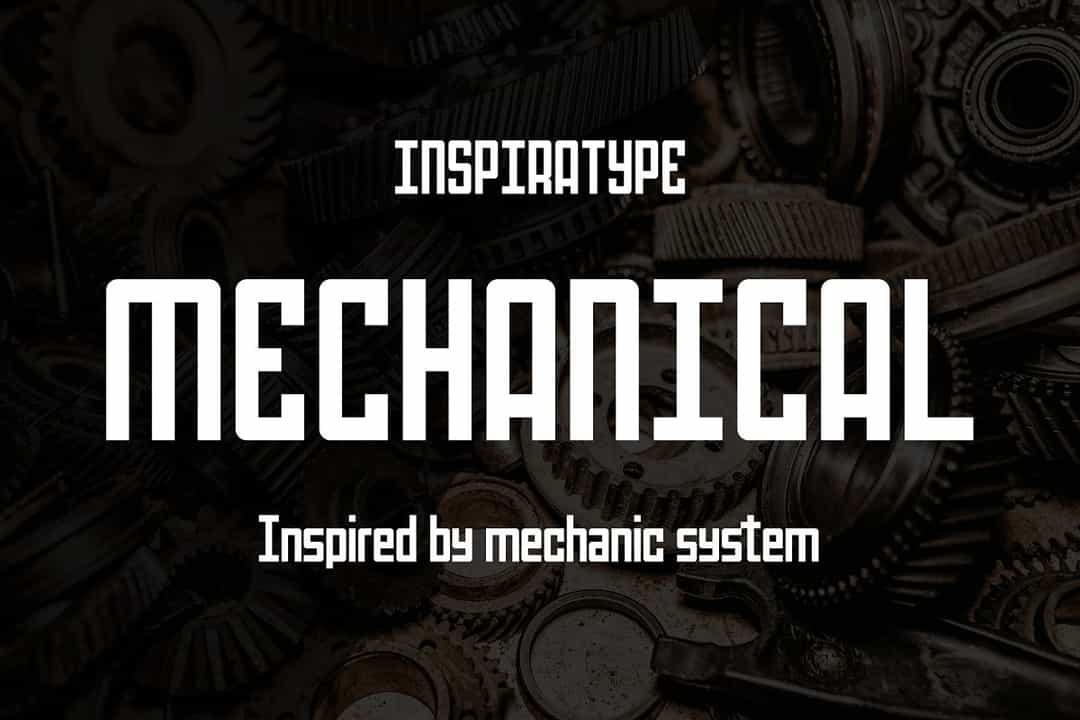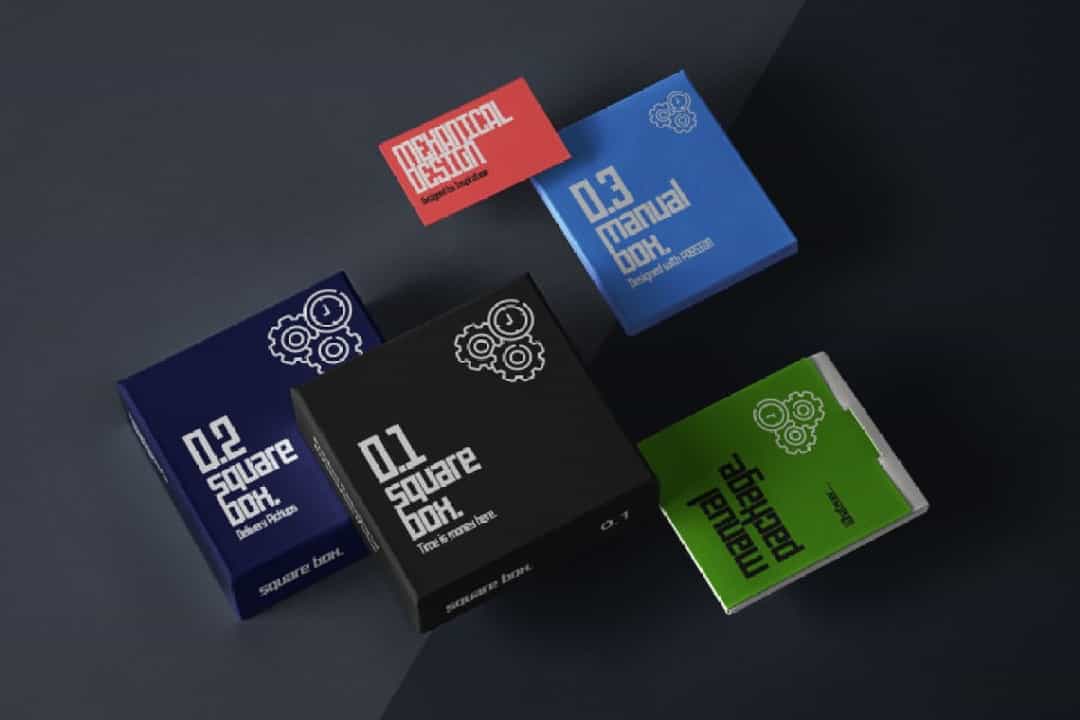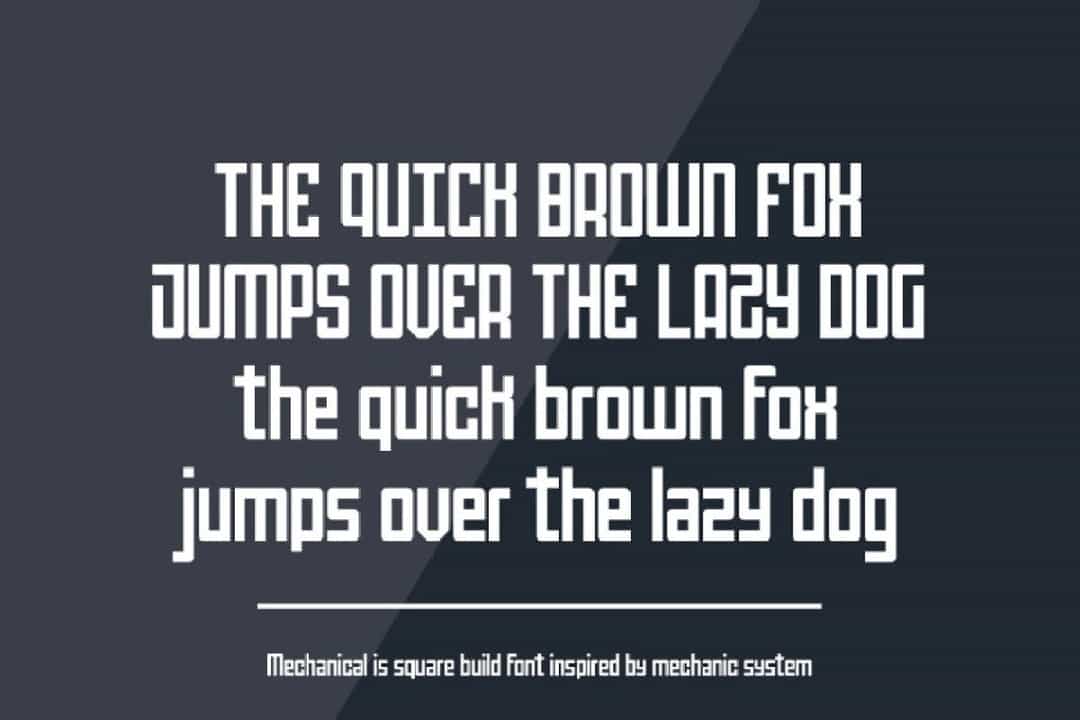
Mechanical is an eye-catching sans serif typeface with an extravagantly strong and bold style, made to provide robust use with an accommodating touch. Ideal for screen and graphic design use in projects ranging from magazines, branding editorials, wedding invitations as well as logo designs posters as well as social media… and beyond!